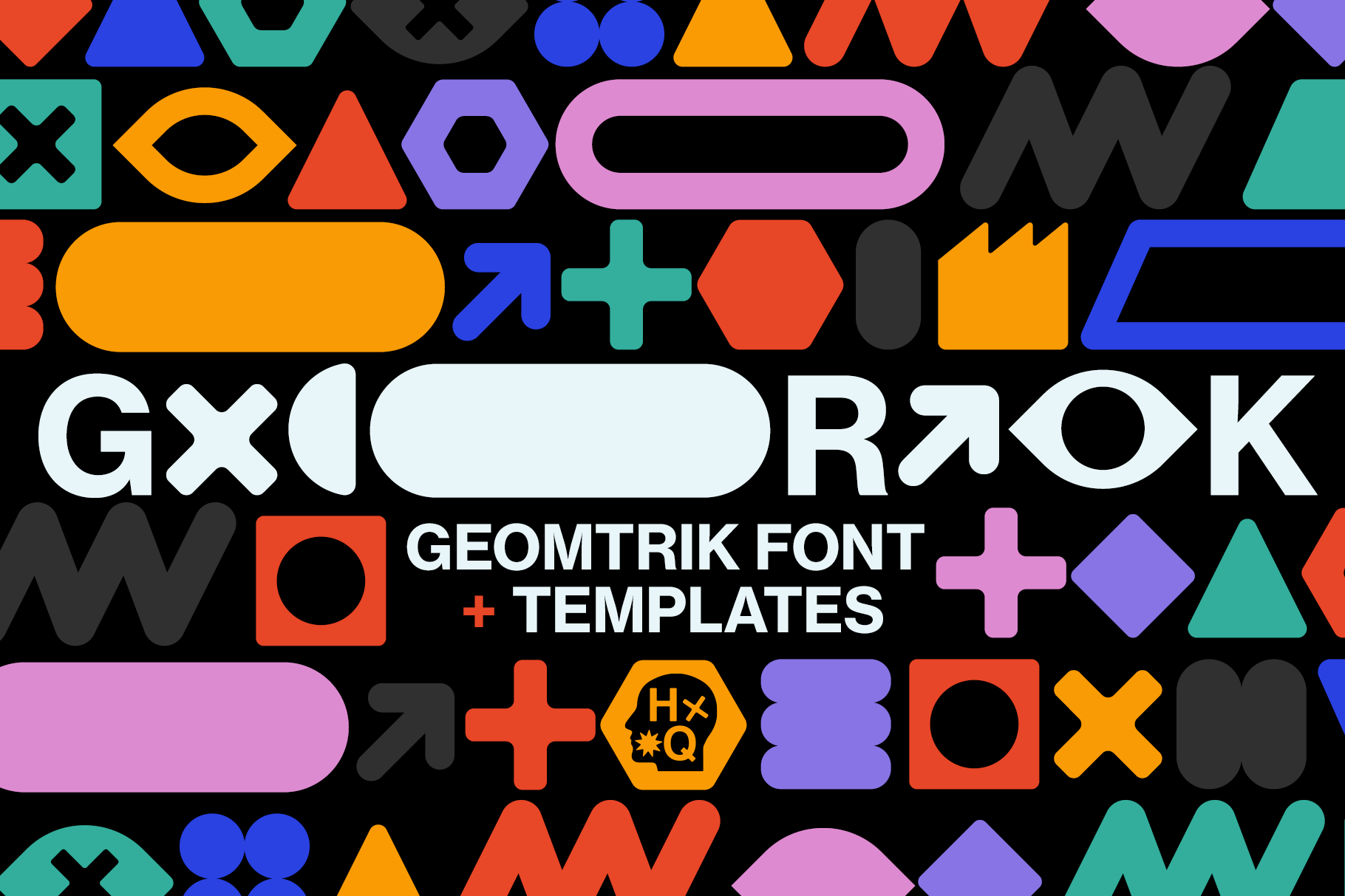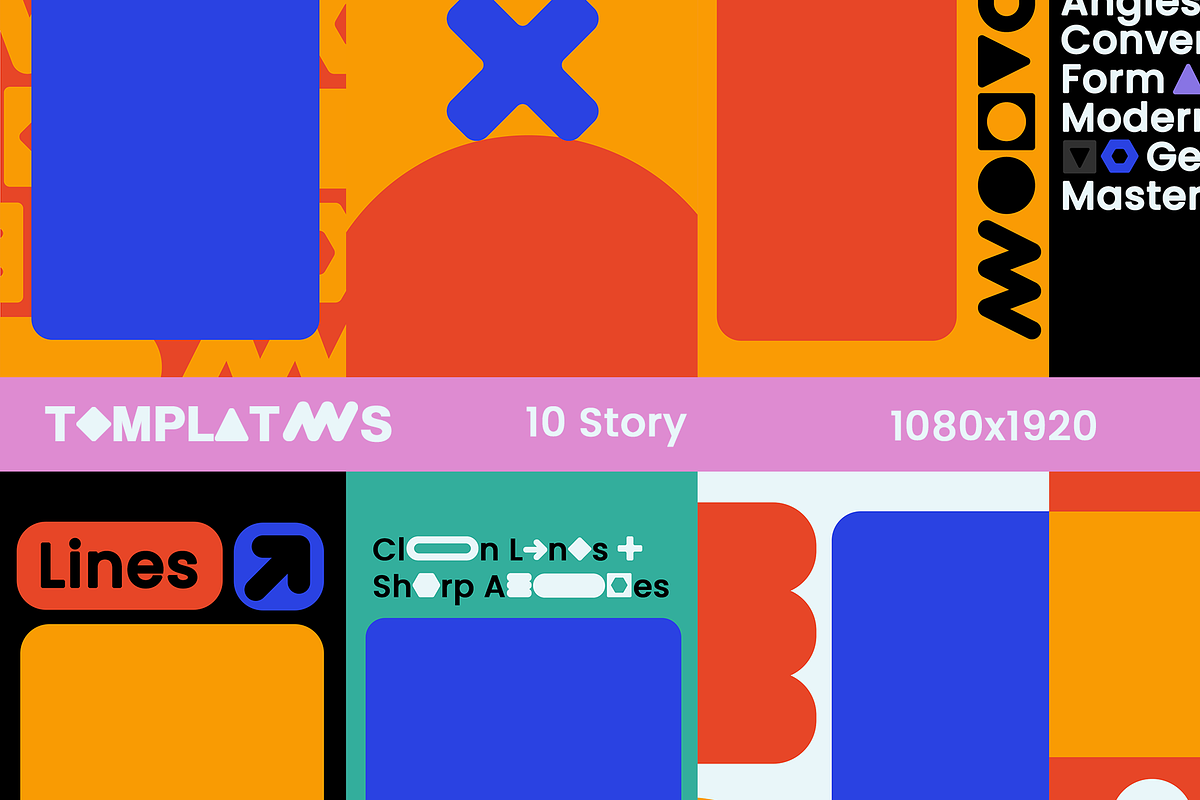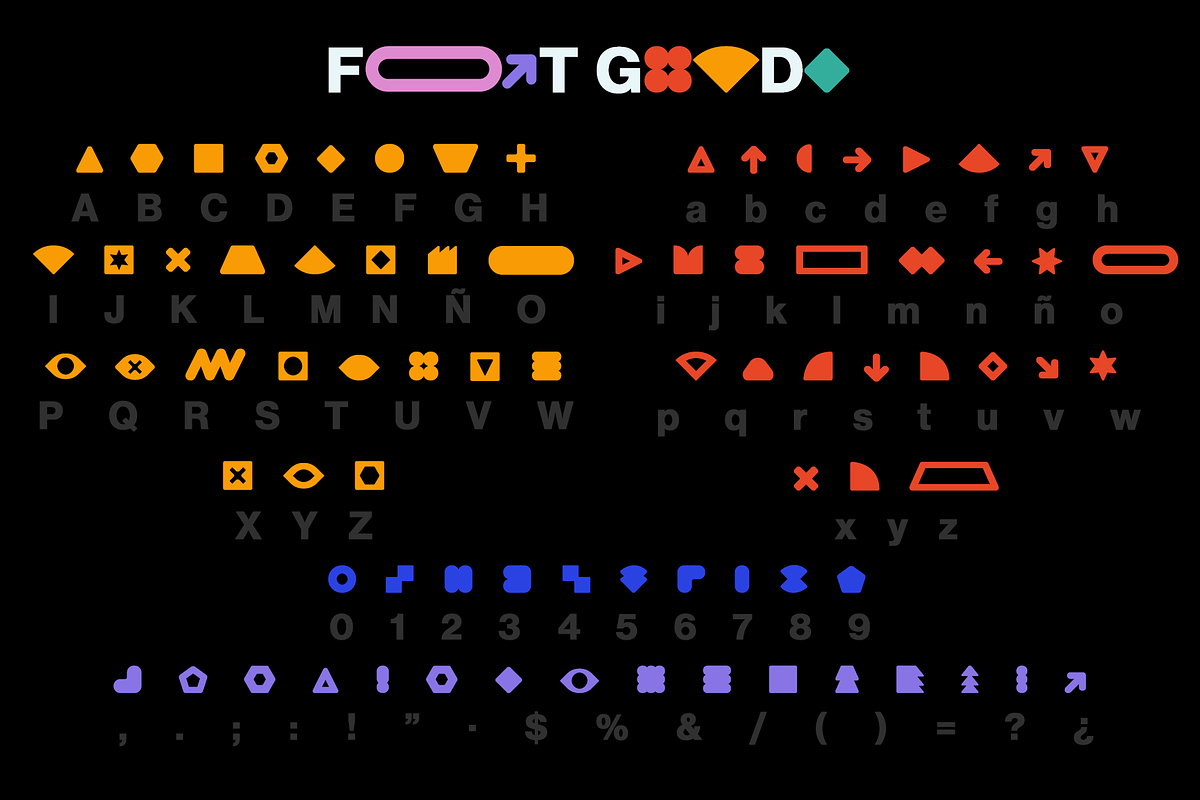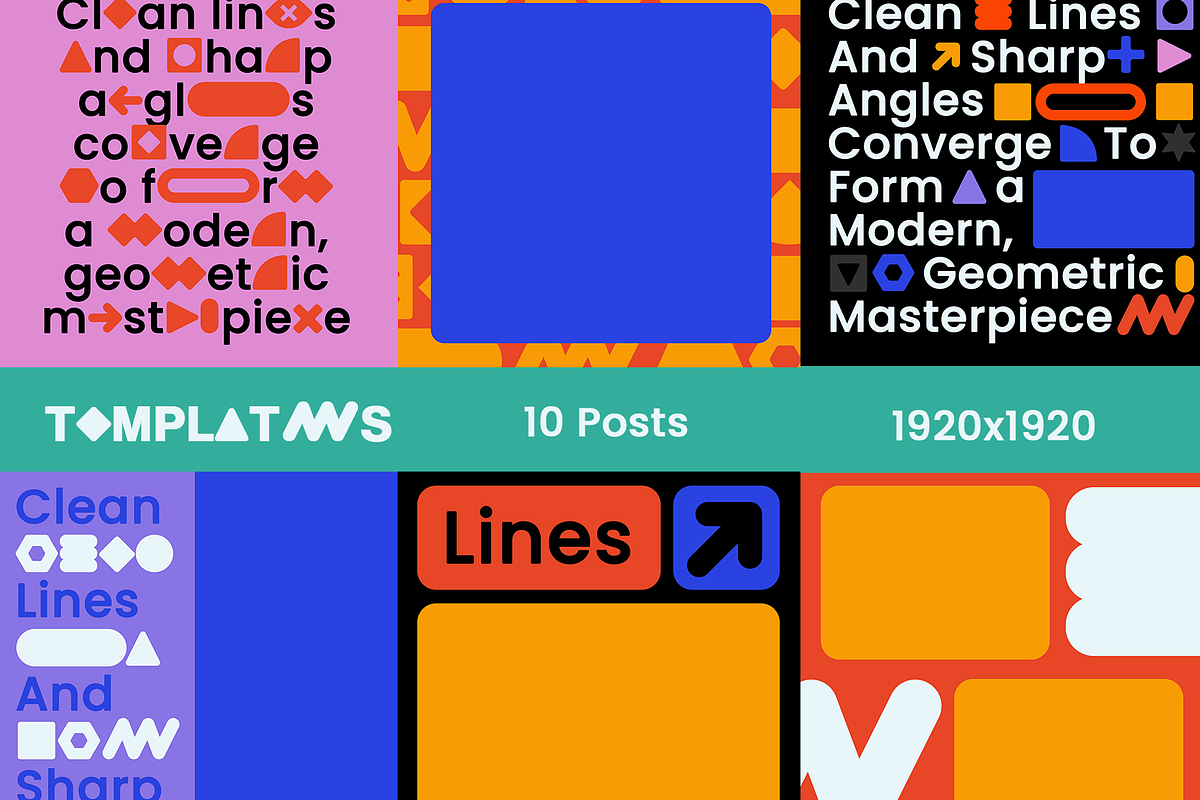
GEOMETRIK Font + Templates
ABOUT
Introducing Geometrik, the display font that transforms typography into captivating geometric art. Each letter is a unique shape, adding a modern edge to your designs. Plus, with 10 post templates and 10 story templates included, your social media game just got a bold upgrade. Explore the world of endless possibilities with Geometrik.